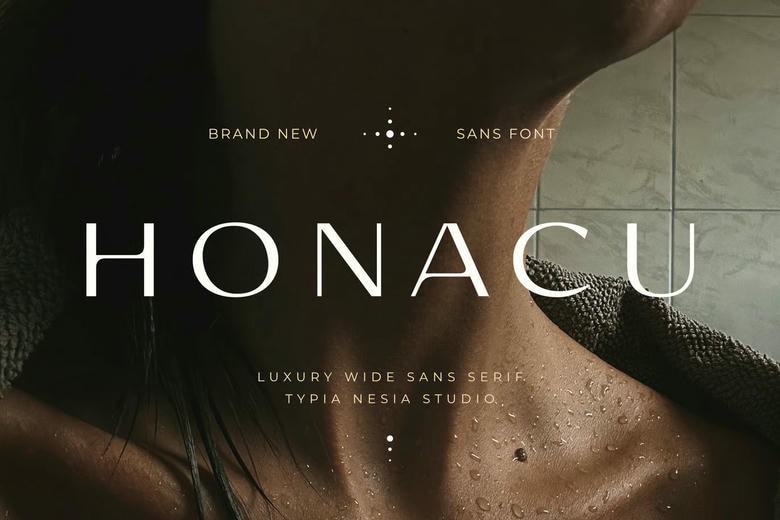
Honacu Font
Honacu is a clean, wide sans-serif font made for beauty, skincare, and high-fashion brands that want a modern and upscale look. It works well on cosmetics packaging, skincare labels, luxury logos, fashion headlines, and simple editorial layouts.
Honacu Sans Serif Font